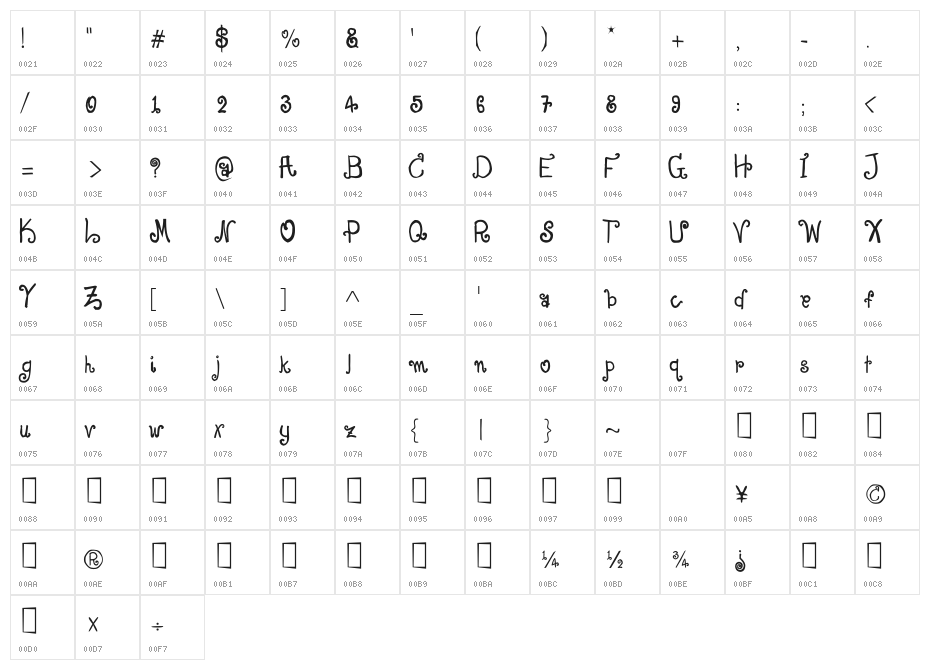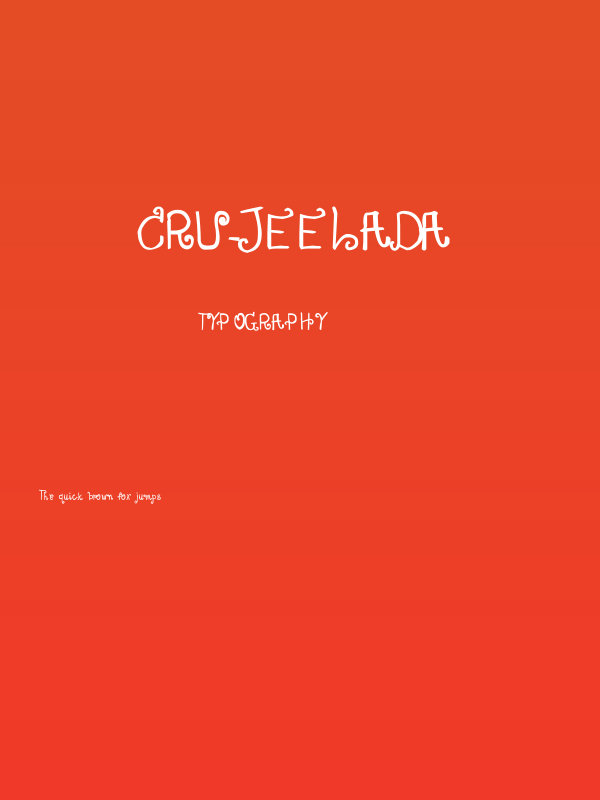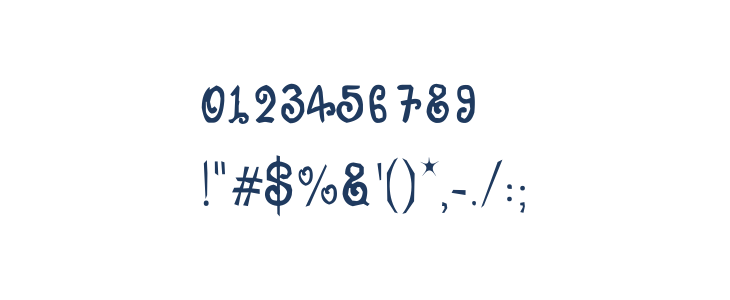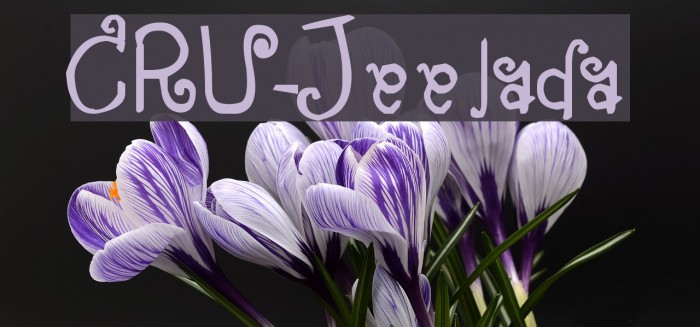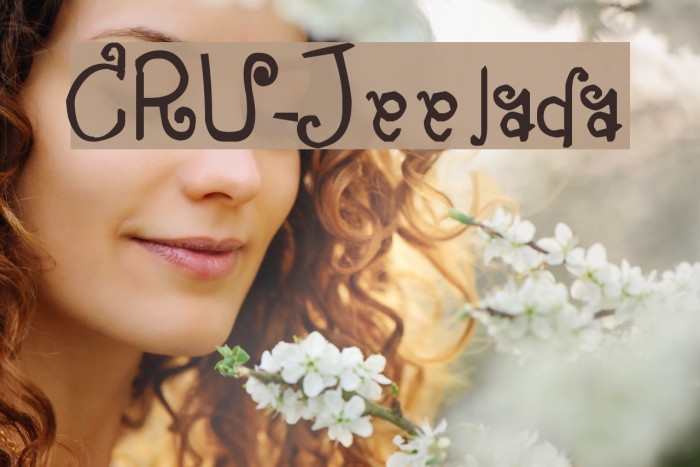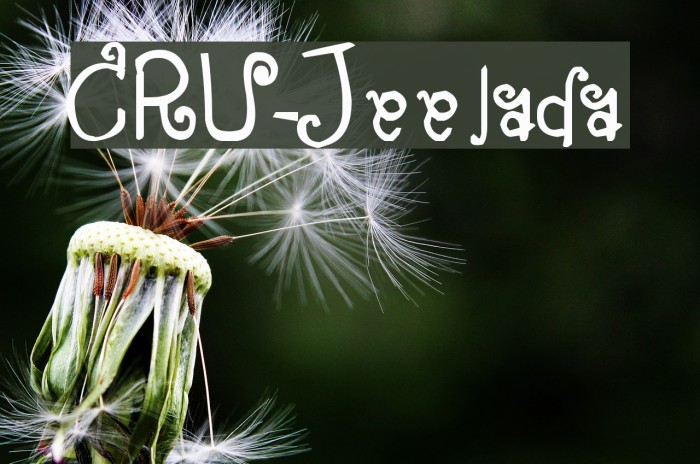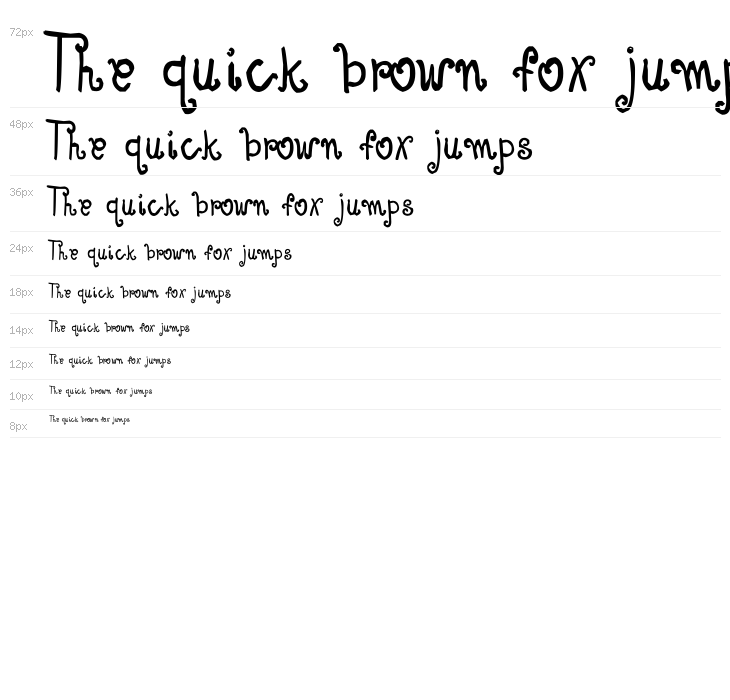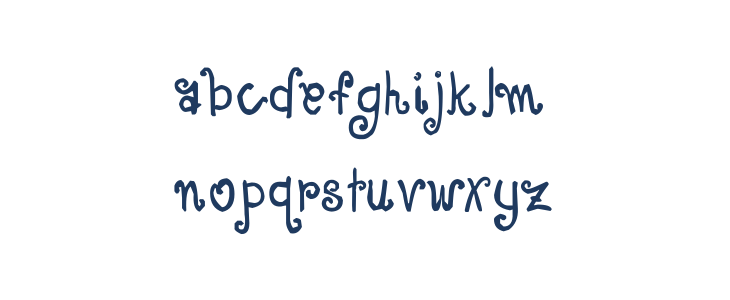
CRU-Jeelada Font
CRU-Jeelada Description
This font features a whimsical and playful design, characterized by its curly and decorative serifs. Each letter has unique embellishments, giving it a hand-drawn appearance that adds charm and personality. The uppercase letters are bold and prominent, while the lowercase letters maintain a consistent style with slightly exaggerated curves. Numbers and special characters follow the same playful theme, making the font suitable for creative and informal applications. The overall design is cohesive, with a consistent stroke width that enhances readability while maintaining its decorative flair.
| Overall Style | Playful, Whimsical, Decorative |
| Proposed Projects | Ideal for children's books, greeting cards, playful branding, and creative posters. |